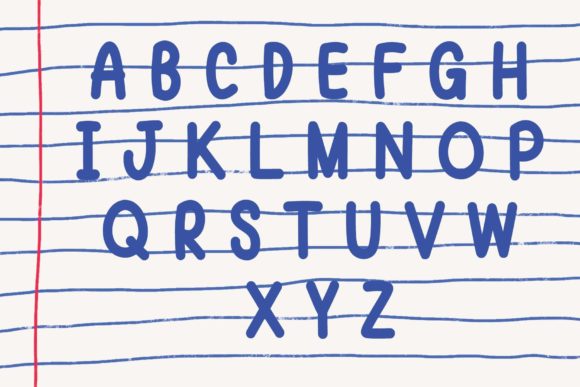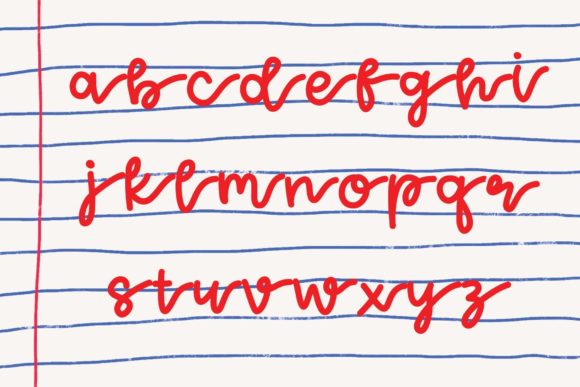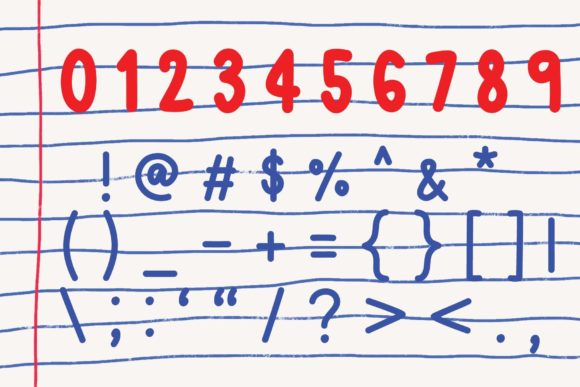
Introduction to Notebook Lecture Font
Notebook Lecture is a sweet and friendly handwritten font.
Its natural and unique style makes it incredibly fitting to a large pool of designs Add it confidently to your projects, and you will love the results.
Key Features of Notebook Lecture Font
Why Choose Notebook Lecture Font?
Notebook Lecture Font offers exceptional quality and versatility, making it a valuable addition to your design toolkit. Whether you’re creating for personal projects or commercial use, Notebook Lecture Font delivers professional results.